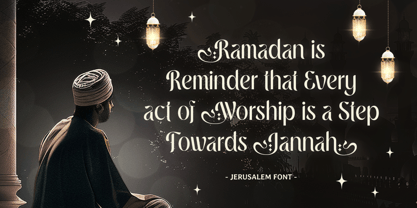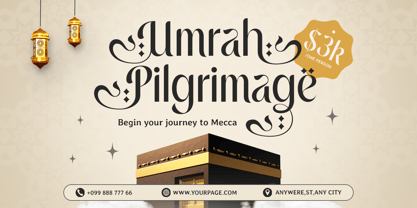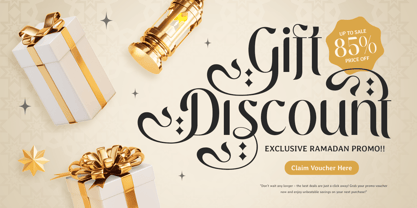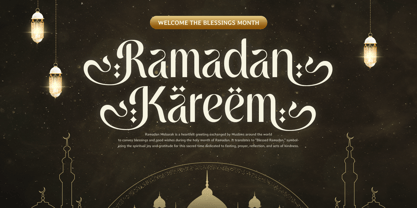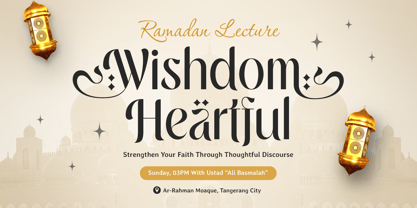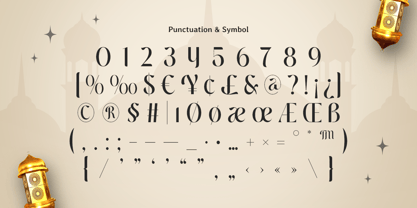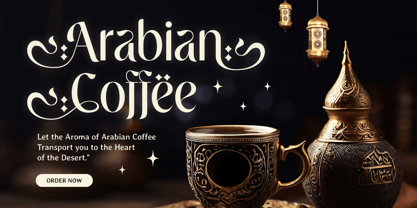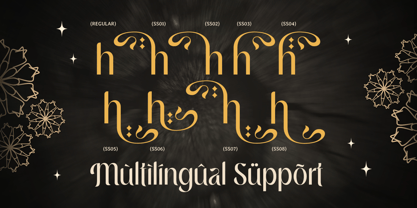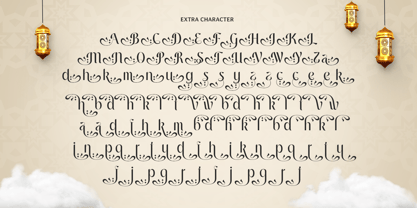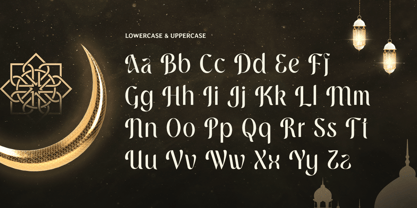
Jerusalem
Jerusalem - Lavish Arabic Ramadan Font
Jerusalem is a lavish Arabic Ramadan font created to bring sophistication and cultural authenticity to your designs. Its graceful forms and intricate detailing make it perfect for creating impactful Ramadan-related content, such as greeting cards, invitations, event posters, and product packaging. Jerusalem captures the heart of Ramadan, combining traditional Arabic artistry with a modern luxurious touch.
Rooted in the beauty of Islamic calligraphy, Jerusalem adds timeless elegance to your designs. Whether used for branding, festive campaigns, or digital media, this font creates a connection between cultural heritage and contemporary design. Let your Ramadan projects shine with Jerusalem’s opulent style and refined aesthetic.
Elevate your designs with Jerusalem, a font that symbolizes the essence of the holy month. Its premium feel and versatile applications make it the perfect choice for projects that need to communicate beauty, spirituality, and sophistication.
Jerusalem Lavish Arabic Ramadan Font Features:
• Luxurious Arabic Script with a Ramadan Aesthetic
• Punctuation, Numbers, and Symbols
• Uppercase and Lowercase
• Opentype Features
Multilingual Characters available for: